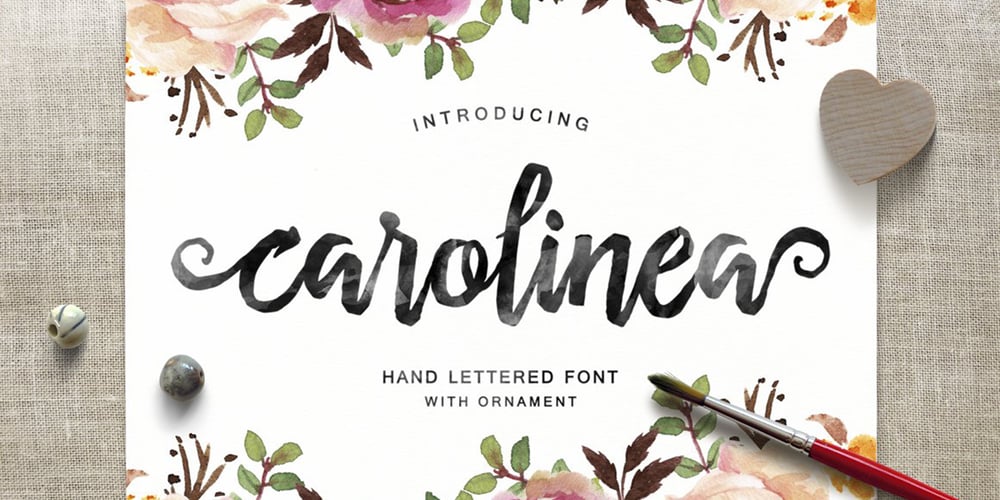
Carolinea
Carolinea font
Carolinea Font Family was designed by Seniors Studio and published by Seniors Studio. Carolinea contains 1 styles and family package options. Carolinea is a hand lettered script fonts, using brush & ink combines a style brush calligraphy, irregular baseline, a rough edges, bold and organic. Including initial and terminal letters, ornament, ligatures and multiple language support. Can be used for various purposes such as posters, logos, t-shirt, signage, businnes card, magazines, book cover, wedding invitation, greeting cards etc.